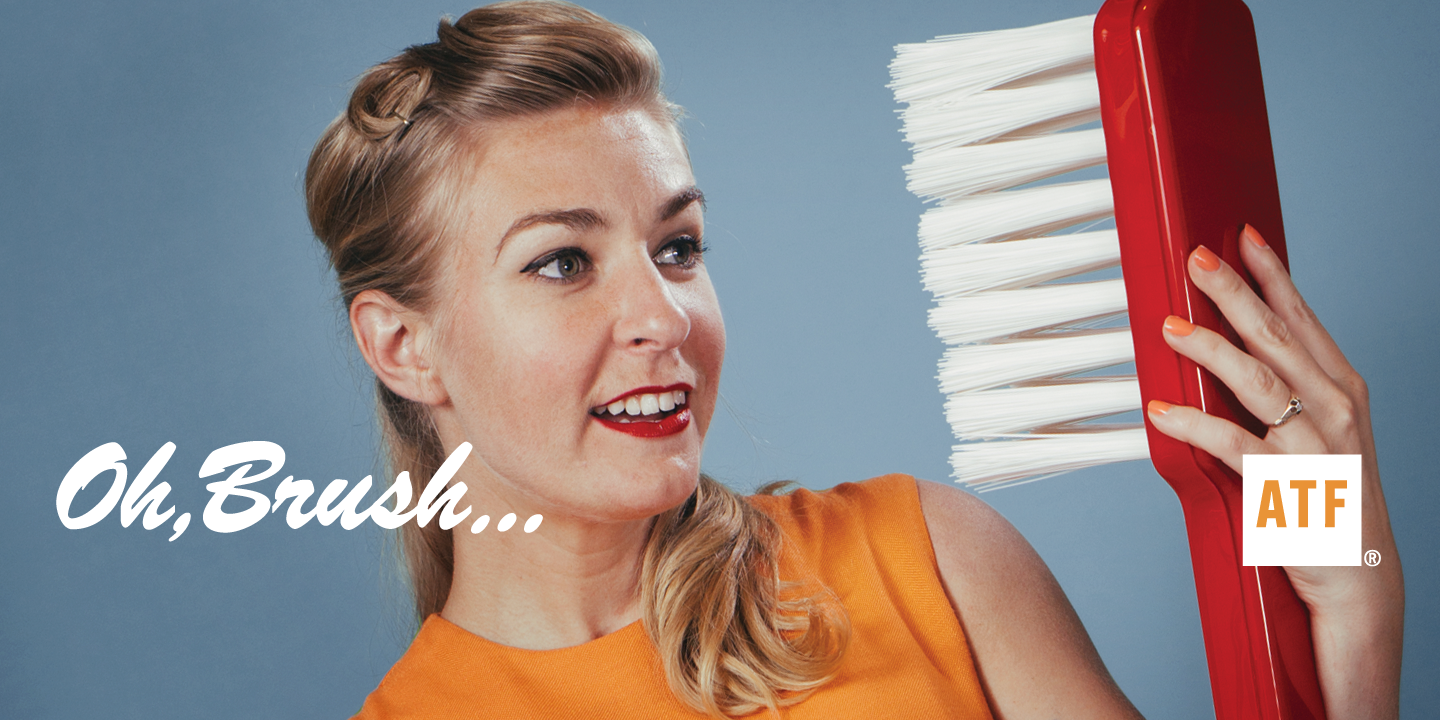
If you're looking for a bold, expressive, and artistic brush script, ATF Brush Font Free Download is a perfect choice. This dynamic typeface captures the raw energy of hand-painted lettering, making it ideal for posters, promotional materials, logos, and projects that require a creative, personal touch.
ATF Brush features fluid, brushstroke-inspired letterforms that offer both movement and personality. Whether you're designing for a creative campaign, a streetwear brand, or a social media post that needs to stand out, this font brings a natural, energetic vibe to your typography. Its strong strokes and varied thicknesses provide a bold yet organic feel, reminiscent of handmade brush lettering.
Best suited for display use, ATF Brush shines in large-scale headlines, logos, and graphic designs. Its energetic design pairs well with minimalist backgrounds or other typefaces to create an eye-catching, modern look.